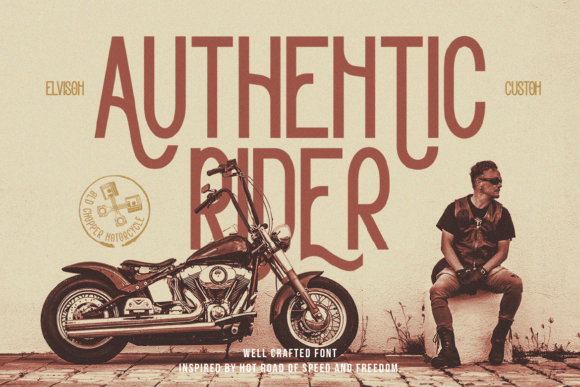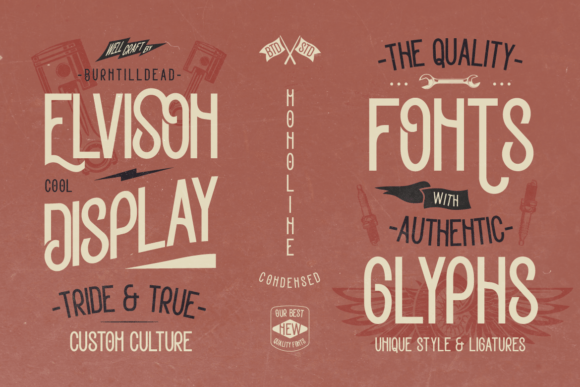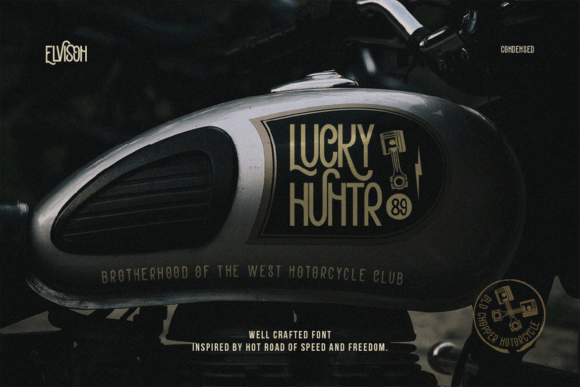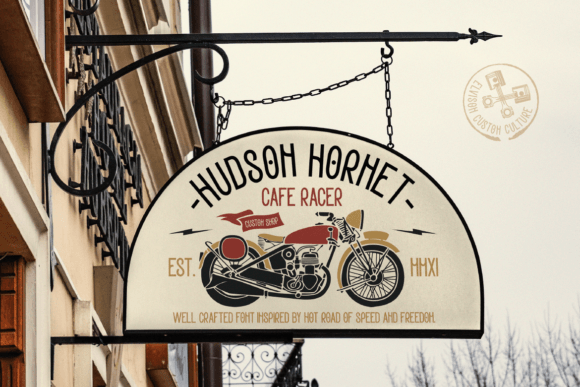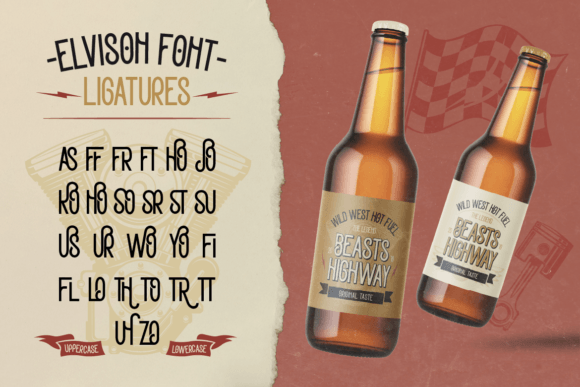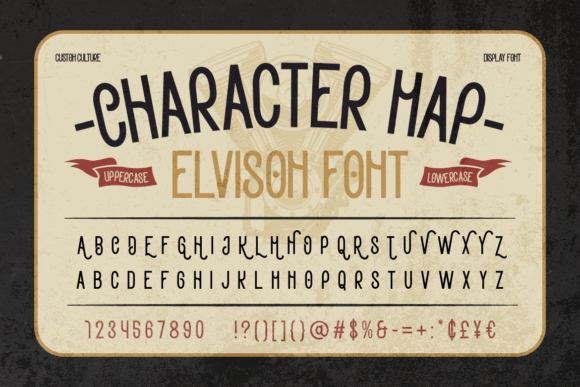
The Designer’s Delight: Unleashing the Power of Elvison Font
I’ll never forget the struggle I faced while working on a vintage-themed project for a client. The brief was clear: create a design that screams classic American style with a hint of nostalgia. But, as I scrolled through my font library, I just couldn’t find the perfect fit. That was until I stumbled upon Elvison, a culture-custom font that instantly resonated with the project’s vibe. In this article, I’ll share my journey with Elvison, its features, and how you can make the most of it in your designs.
First Impressions: What Makes Elvison Special
Elvison is a condensed monoline font with a unique twist – it’s inspired by the spirit of classic American design. Its custom culture feel, coupled with vintage and retro elements, makes it a standout in the world of typography. The font comes with multilingual support, making it an excellent choice for international projects.
What I Love About Elvison ✨
- ✅ Unique ligatures that add a touch of vintage charm
- ✅ Condensed monoline design perfect for headlines and titles
- ✅ Multilingual support for global projects
- ✅ Perfect for branding, posters, social media, and more
- ⚠️ Limited use in body text due to condensed design
- ⚠️ Some users might find the font too bold for certain applications
The Story Behind Elvison: A Glimpse into Its Creation
Elvison was born out of a passion for classic American design and a desire to create a font that embodies the spirit of nostalgia and vintage culture. The designer aimed to craft a typeface that not only pays homage to the past but also feels fresh and modern. Through meticulous attention to detail and a deep understanding of typographic history, Elvison came to life.
Q: What makes Elvison suitable for international projects?
A: Elvison’s multilingual support makes it an excellent choice for projects that require text in multiple languages.
Q: Can I use Elvison for body text?
A: While Elvison is primarily designed for headlines and titles, its condensed nature might make it less suitable for lengthy body text.
Q: What kind of projects is Elvison best suited for?
A: Elvison is ideal for branding, posters, social media graphics, automotive, sports, barbershop, tattoo parlor, music cover albums, and more.